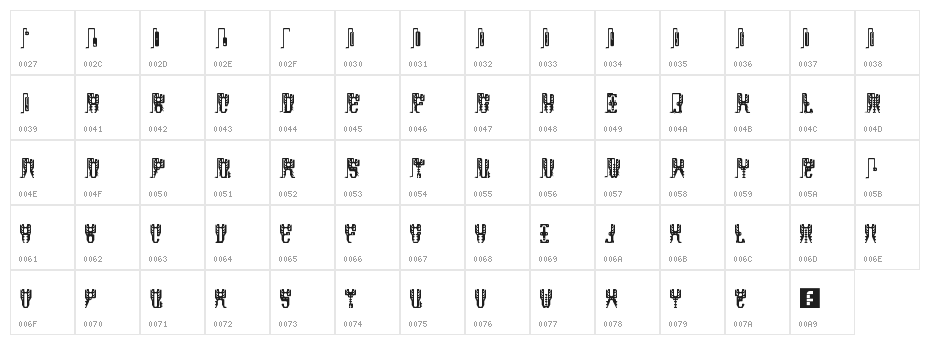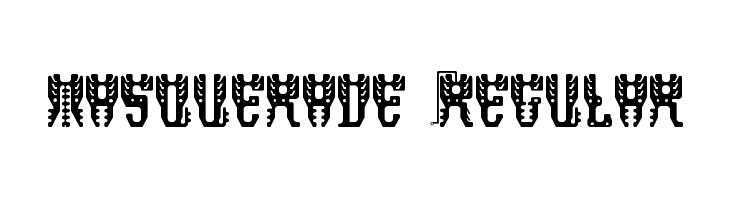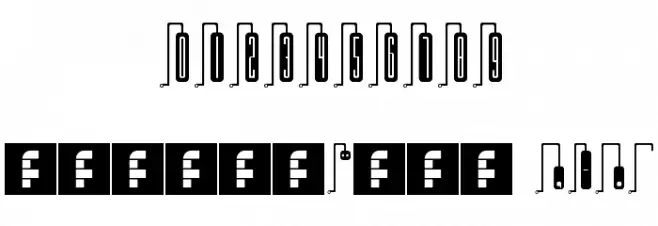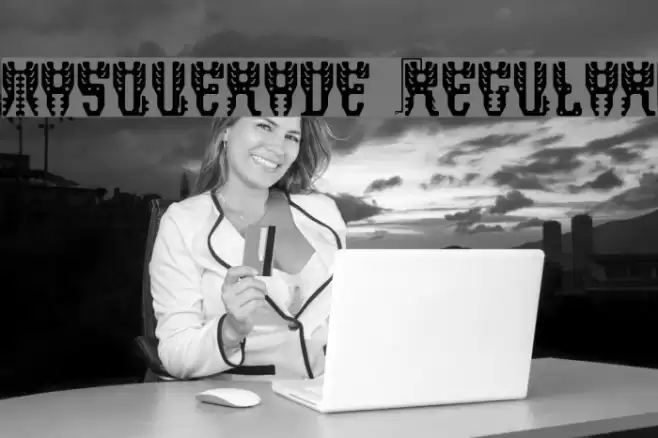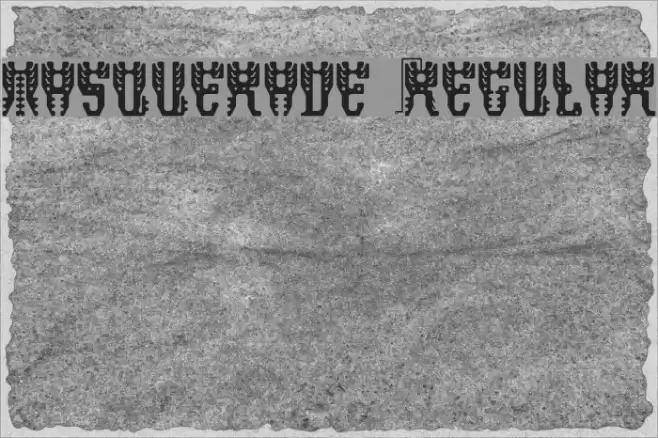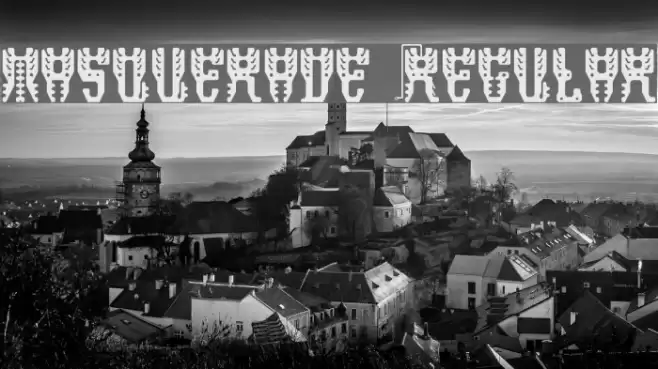
masquerade Regular Font
masquerade Regular Description
This font exudes a bold and dramatic flair, characterized by its intricate and ornate design. Each letter is adorned with decorative elements that give it a unique, almost theatrical appearance. The uppercase letters are particularly striking, with elaborate embellishments that resemble masks or ornate carvings. The lowercase letters maintain the same level of detail, ensuring consistency throughout the typeface. The numerals and special characters are equally ornate, making this font ideal for projects that require a touch of elegance and drama. The overall design is reminiscent of a masquerade ball, with a sense of mystery and sophistication.
| Proposed Projects | Ideal for theatrical posters, event invitations, book covers, and branding that requires a touch of elegance and drama. |